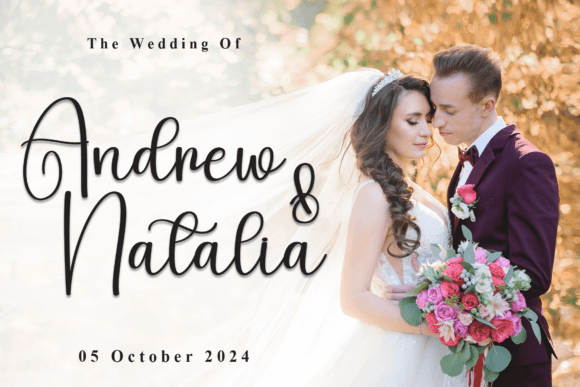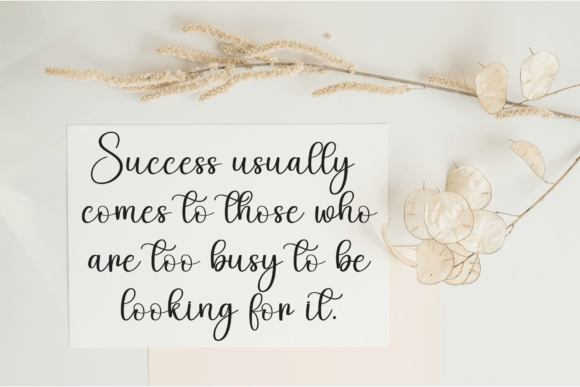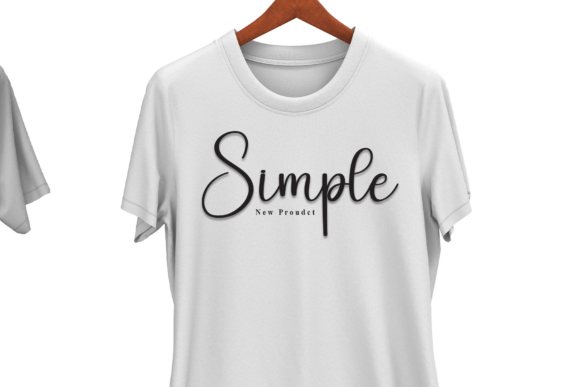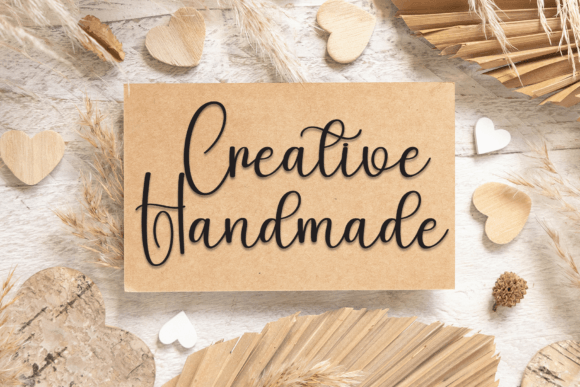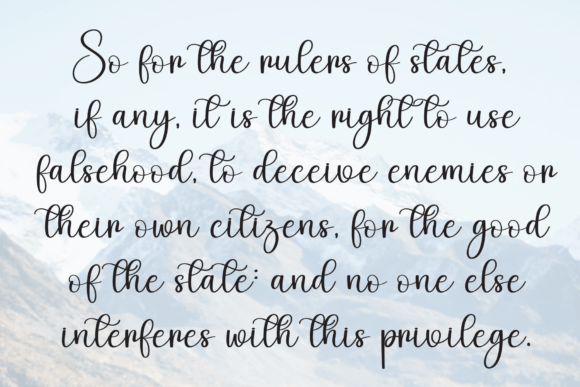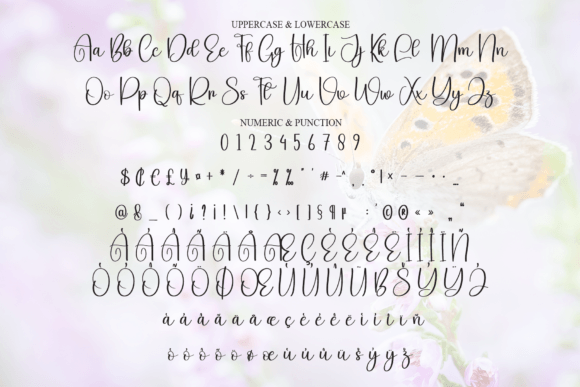
The Perfect Script for Whimsical Designs
Have you ever stared at a blank page, trying to come up with the perfect font to match your creative vision? It’s a moment we’ve all been there – where the perfect font can make or break the overall aesthetic of our design. For those looking for a light and playful touch, look no further than the Baby Butterfly Font.
This adorable script font is designed to bring a smile to your face, with its soft, flowing letters and charming style. Whether you’re working on a children’s book, a greeting card, or a social media post, Baby Butterfly Font is the perfect choice for adding a touch of whimsy to your design. With its friendly and approachable feel, this font is a valuable asset for designers looking to create joyful and engaging projects.
Baby Butterfly Font Key Features
- Unique Characteristics: Whimsical, hand-drawn design with delicate details and subtle texture, evoking a sense of innocence and playfulness.
Designer Review: Baby Butterfly Font
When I first saw the Baby Butterfly Font, I was immediately charmed by its whimsical and playful vibe ✨. The font’s delicate, hand-drawn style and soft curves are reminiscent of children’s book illustrations, making it perfect for projects that need a touch of innocence and wonder.
One of the standout features of this font is its versatility ✨. It can be used for a wide range of applications, from children’s educational materials to wedding invitations and even packaging design. The font’s flexibility also makes it easy to pair with other fonts and styles, allowing designers to create unique and visually appealing combinations.
However, there are a few limitations to consider ⚠️. The font’s delicate nature can make it difficult to read at smaller sizes, and the letterforms may become distorted when scaled down. Additionally, the font’s hand-drawn style can make it challenging to use in situations where precision and consistency are crucial, such as in body text or technical documentation.
Overall, the Baby Butterfly Font is a delightful addition to any designer’s toolkit ✨. While it may not be suitable for every project, its unique charm and versatility make it a great choice for designers looking to add a touch of magic to their work.
- Unique, hand-drawn style
- Delicate, whimsical feel
- Versatile and suitable for a wide range of applications
- Easy to pair with other fonts and styles
The Baby Butterfly font is perfect for creating whimsical and playful designs. To get the most out of it, try:
- Using it in combination with pastel colors and delicate graphics.
- Experimenting with different font sizes and styles to create visual interest.
- Using it for baby-related designs, such as nursery decor or baby shower invitations.
The Baby Butterfly font is commonly used for:
- Baby shower invitations and decorations.
- Nursery decor and wall art.
- Children’s book illustrations and design.
- Wedding invitations and decorations with a whimsical or vintage
For optimal readability, we recommend using the Baby Butterfly Font at font sizes between 12pt and 24pt. For body text, use a line height of 1.2-1.5 times the font size, and for headings, use a line height of 1.5-2 times the font size.